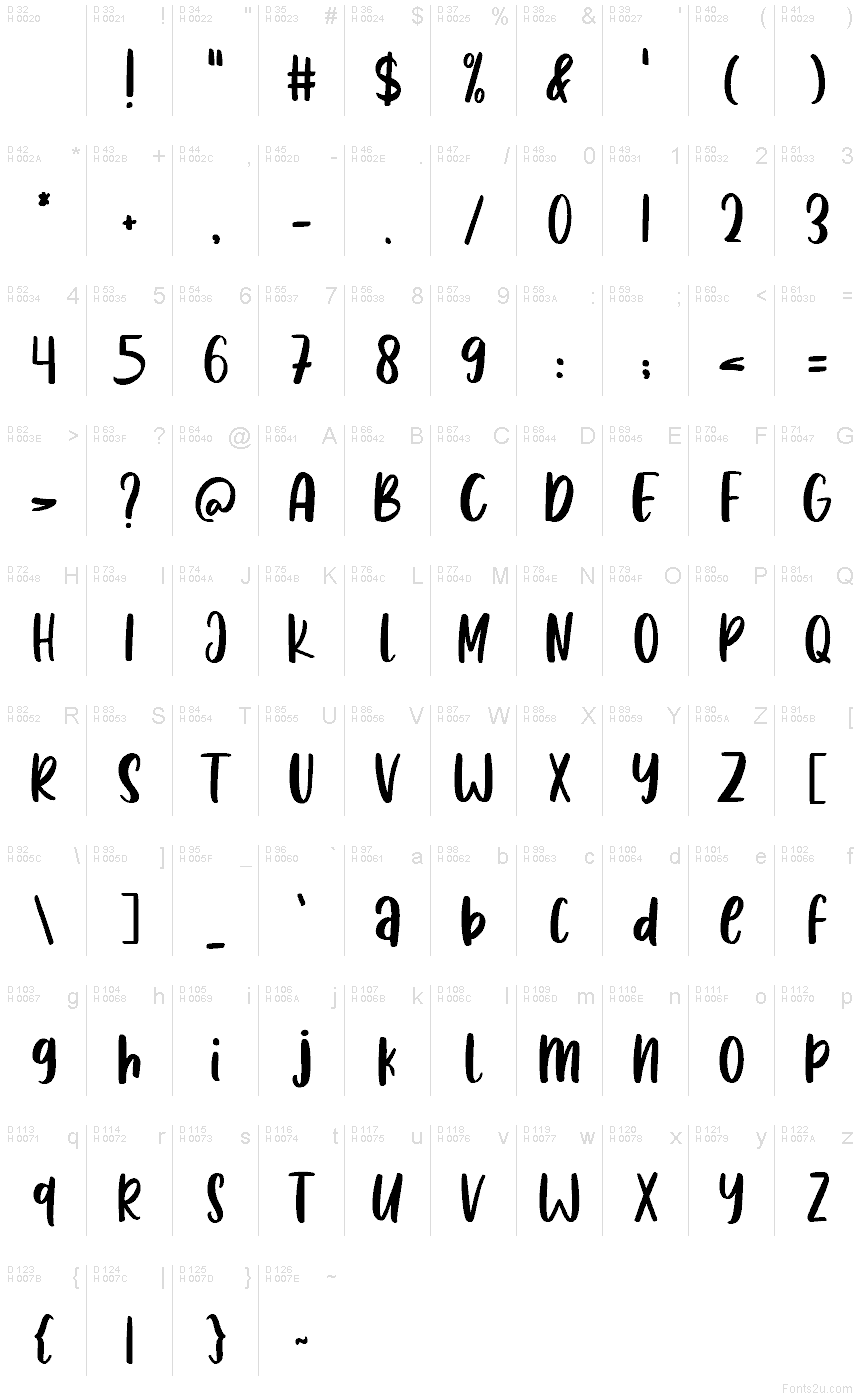
Fun Frog
Fun Frog font by Wildan Type features a clean modern style loaded with expressions and character. The free handwritten font has a unique design that comes together with its condensed letter formation. Together, they allow you to send out clear messages that immediately attract attention.
Fun Frog is ideal for branding designs such as logos or signage, social media posts, blogs, websites, and any fun digital projects. It works great on posters and flyers for children’s events, book covers, business cards, invitations, pamphlets, magazines titles and headlines.